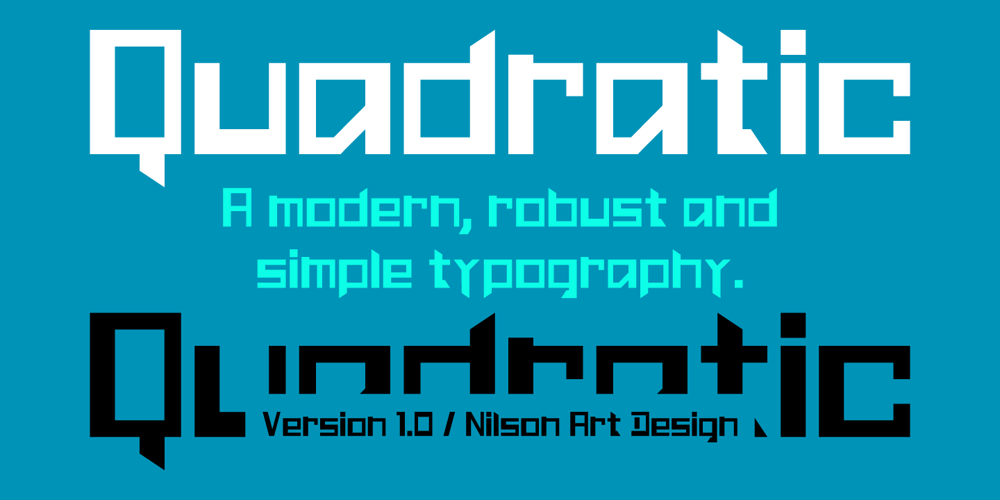
Quadratic
Quadratic font
Quadratic Font Family was designed by Nilson Lima and published by Nilson Art Design. Quadratic contains 1 styles and family package options. Quadratic has a geometric concept and is useful for flashy headlines and ads.